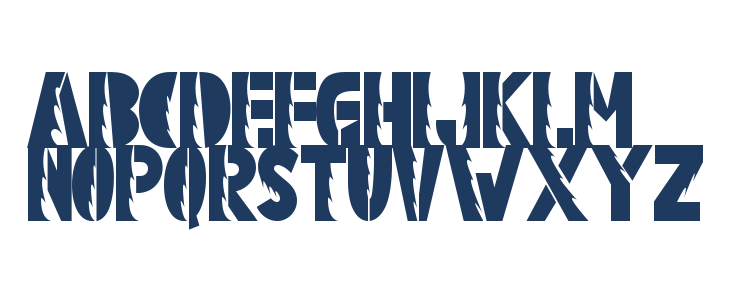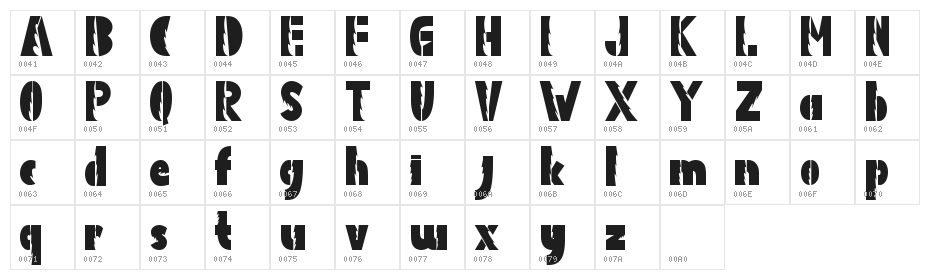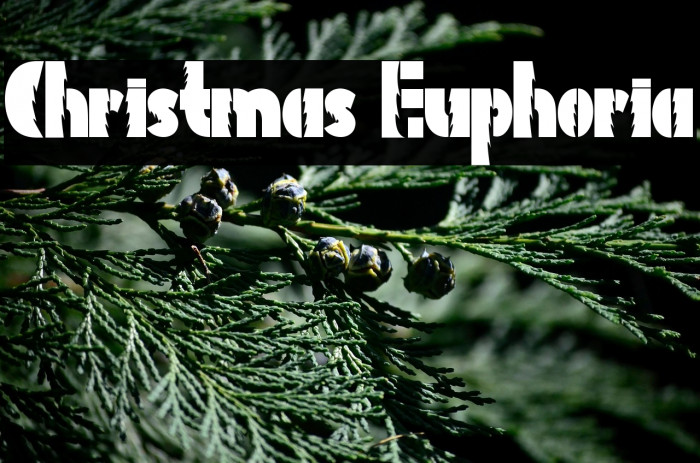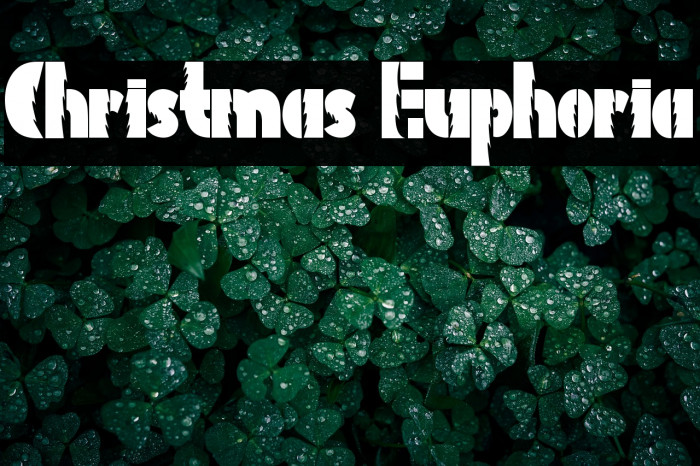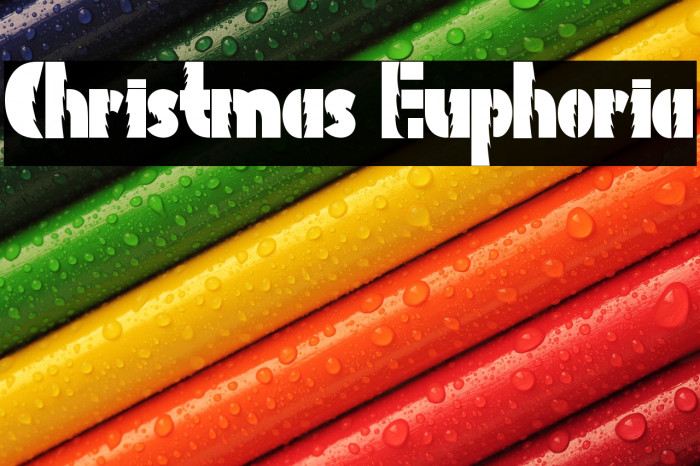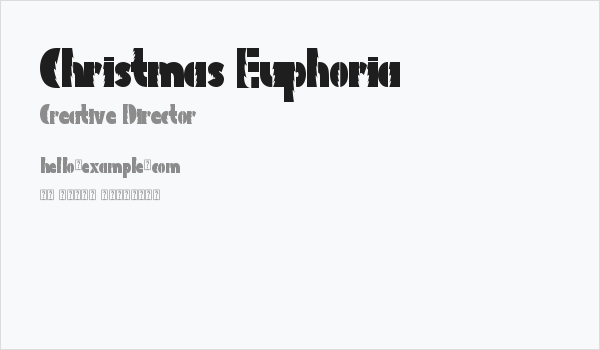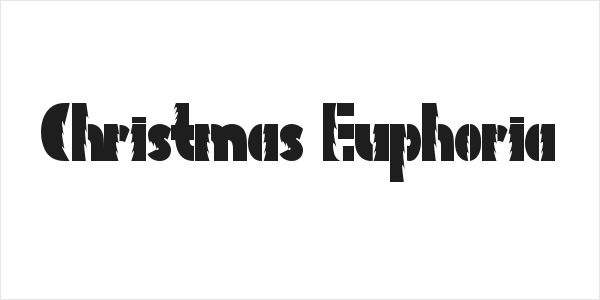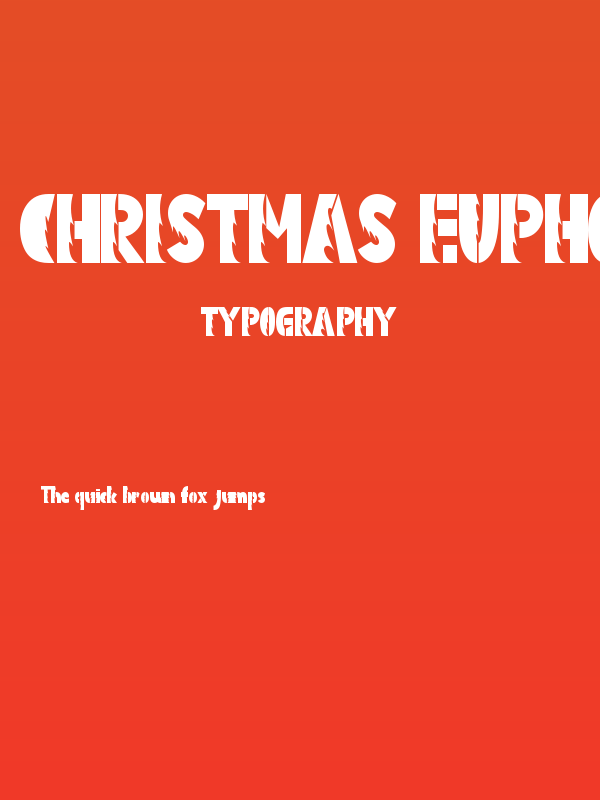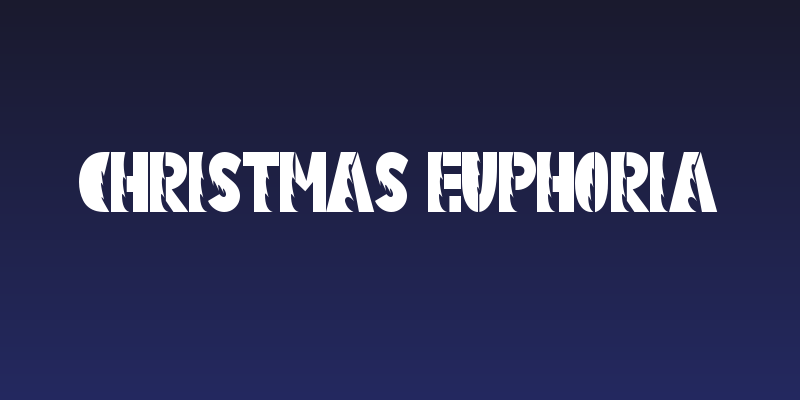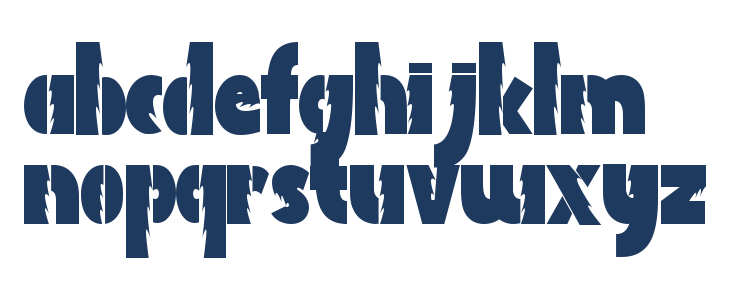
Christmas Euphoria Font
Christmas Euphoria Description
A bold, decorative display font featuring sharp, jagged cutouts within each character, evoking a festive and energetic winter or holiday theme. The letterforms are geometric and blocky, with high visual impact and unique negative space details.
| Overall Style | Decorative, Festive, Modern |
| Use Case | Headlines, Posters, Logos, Event Promotions |
| Proposed Projects | Holiday posters, Christmas cards, event invitations, festive branding, seasonal packaging. |